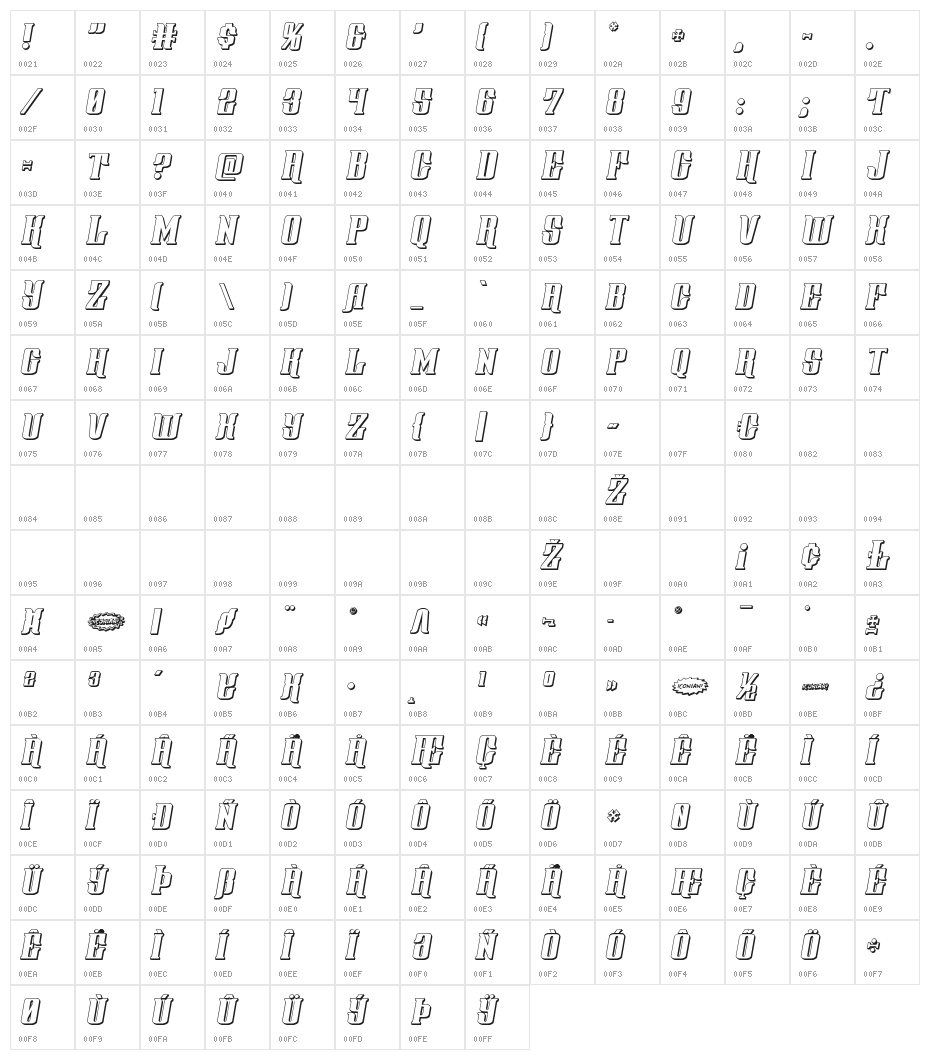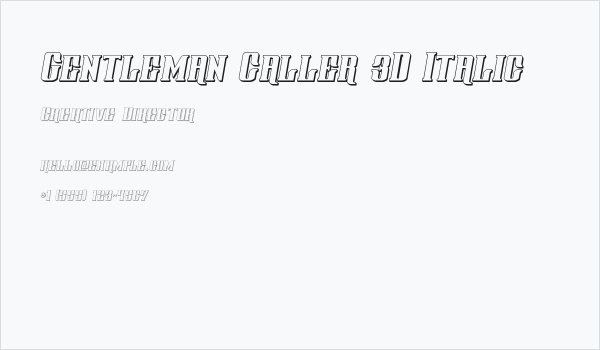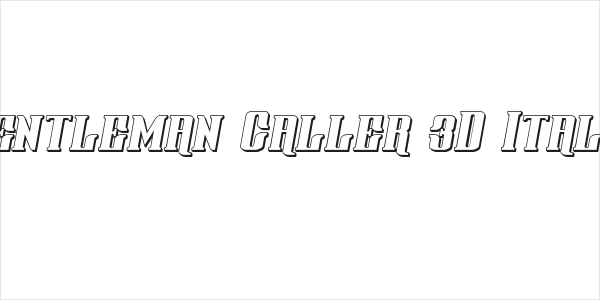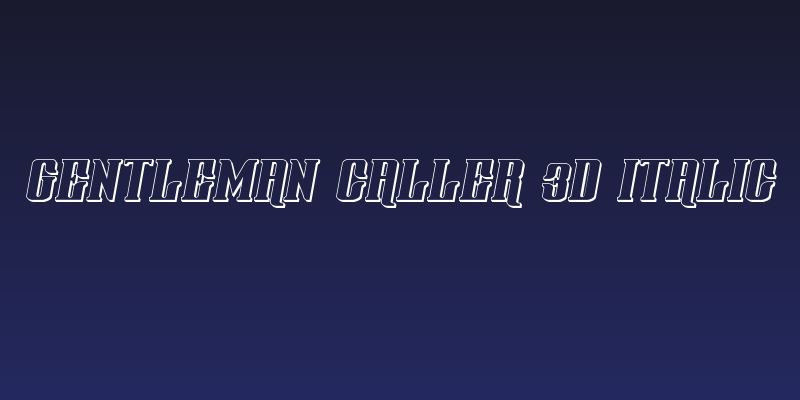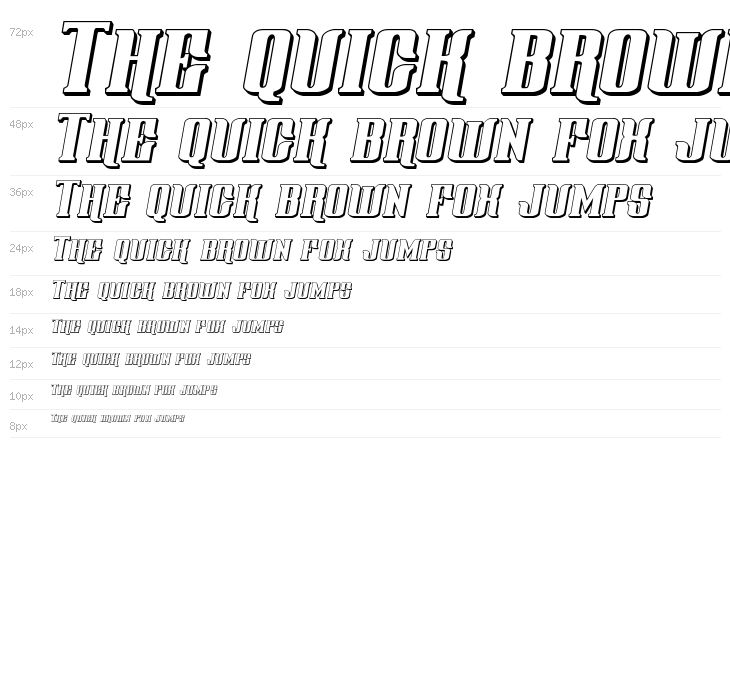
Gentleman Caller 3D Italic Font
Gentleman Caller 3D Italic Description
This font features a bold, three-dimensional appearance with a distinct italic slant, giving it a dynamic and eye-catching look. The letters are outlined with a shadow effect, enhancing the 3D illusion and adding depth. The uppercase and lowercase characters maintain a consistent style, with sharp angles and clean lines that contribute to its modern aesthetic. The numerals and special characters are designed to match the overall style, ensuring uniformity across all elements. This font's unique design makes it suitable for projects that require a strong visual impact.